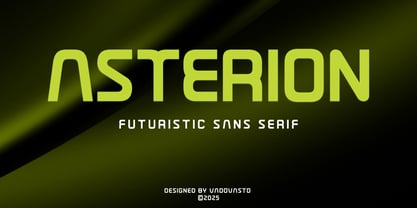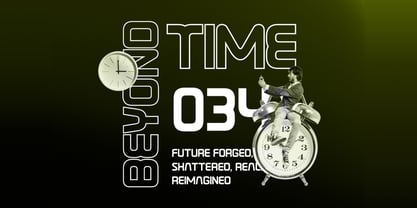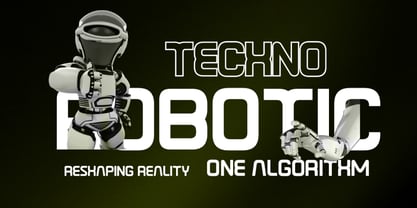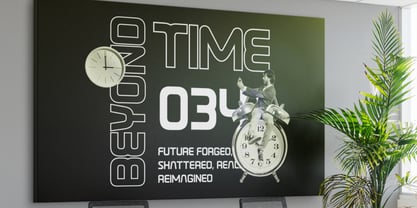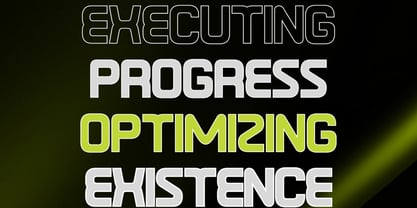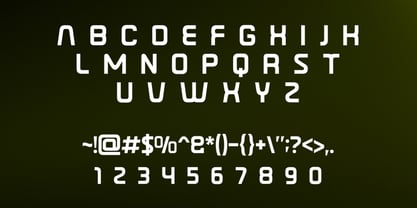
Asterion
by Vadova Std
The Asterion Font Family and published by Vadova Std. Asterion contains 1 styles. More about this family
Asterion is a futuristic sans-serif typeface designed with smooth geometry, rounded corners, and a clean modern structure. Its balanced proportions and soft techno details create a contemporary look that feels innovative yet highly readable. The font combines minimalism with a subtle sci-fi character, making it versatile for both display and digital applications. Asterion delivers a fresh, modern tone suited for forward-thinking visual identities.
Suitable For Technology branding, digital products, UI/UX design, futuristic logos, startup branding, web and app interfaces, sci-fi visuals, product packaging, posters, presentations, esports branding, and modern design projects that require a clean, futuristic, and innovative sans-serif typeface.